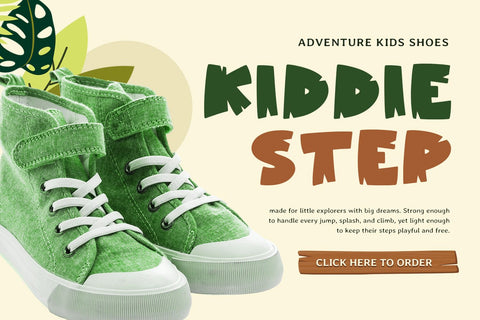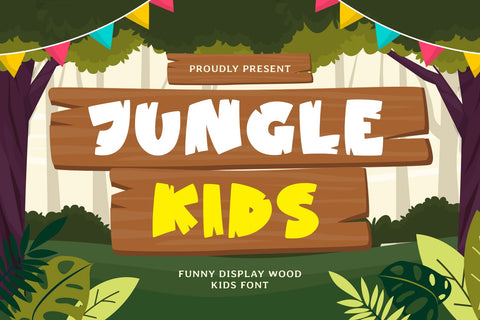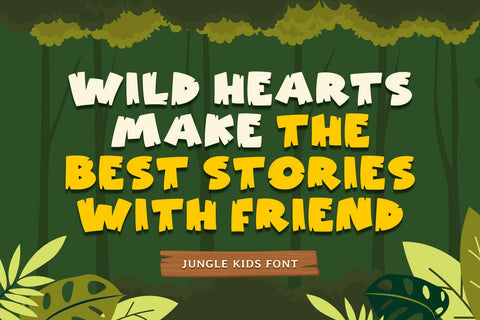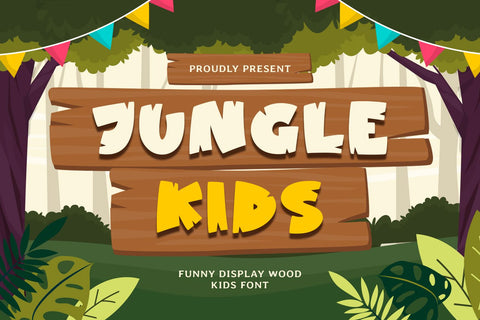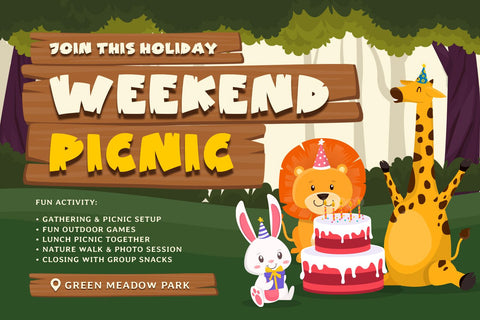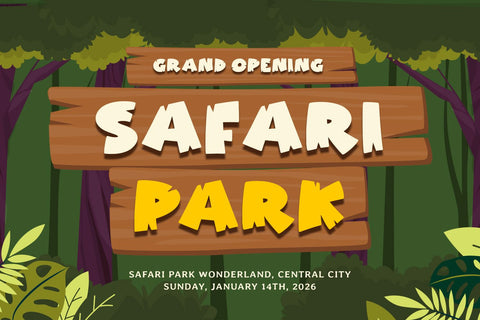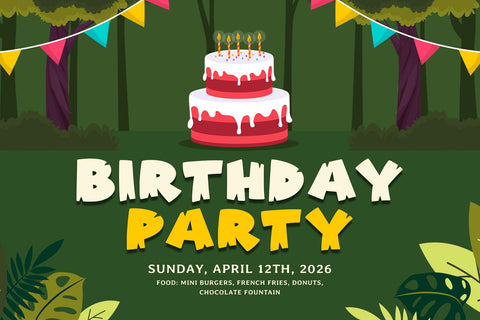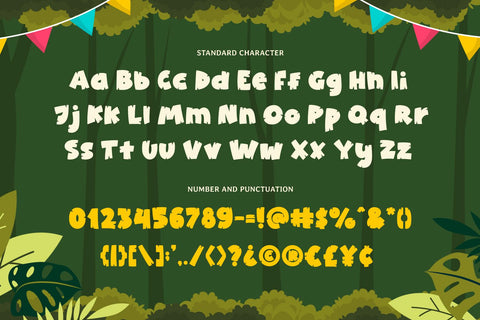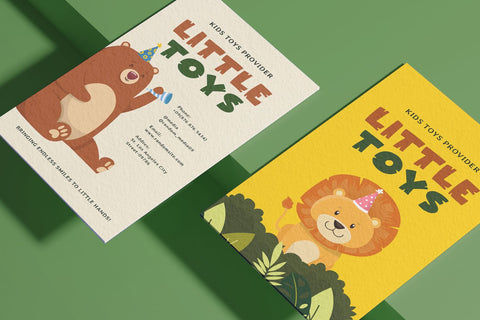
Jungle Kids - Kids Font
Jungle Kids – Kids Font is a playful wood-style font designed to capture the adventurous spirit of the jungle. With bold shapes and rustic textures, it creates the perfect atmosphere for zoo signage, amusement park boards, and nature-inspired designs. Its handcrafted look makes it ideal for projects that need a fun yet adventurous character.
Inspired by the textures of wood and the wild beauty of nature, this font is perfect for children’s themes, educational projects, and playful branding. Whether used for national park guides, zoo posters, or game titles, it brings a lively energy that sparks curiosity and imagination.
Jungle Kids – Kids Font works seamlessly across creative mediums, from wood signs and adventure maps to digital games and interactive activities. Its strong letterforms ensure readability, while its rustic charm adds a unique identity to any project connected with the outdoors or playful exploration.
Perfect for crafting, Cricut projects, and handmade decorations, this font adapts beautifully to physical and digital creations. The wood-inspired style makes it especially fitting for forest adventures, jungle-themed events, and fun signage for playgrounds and attractions.